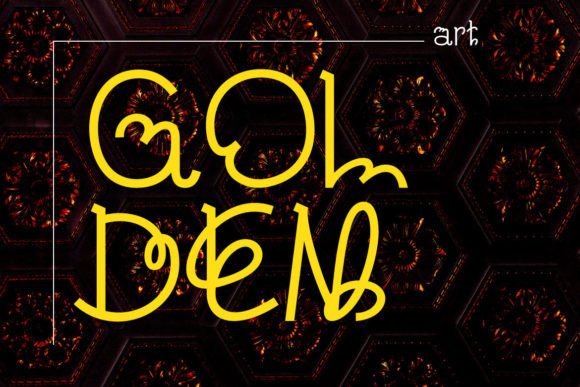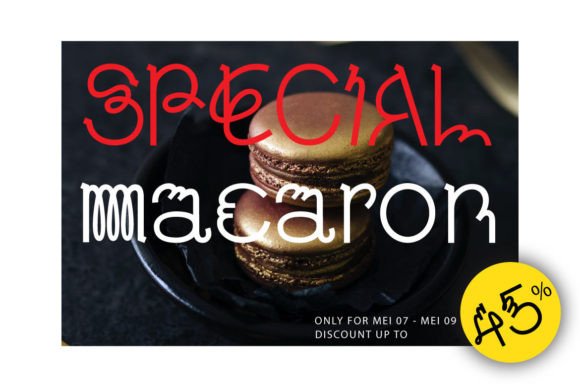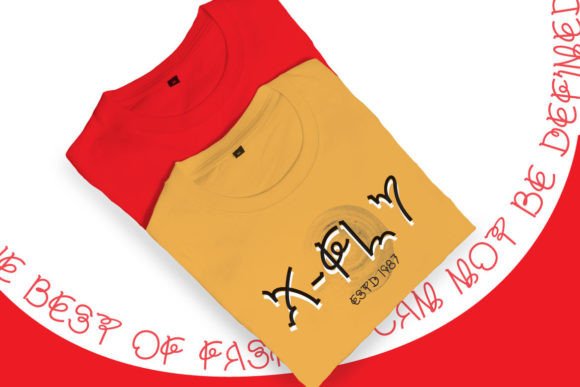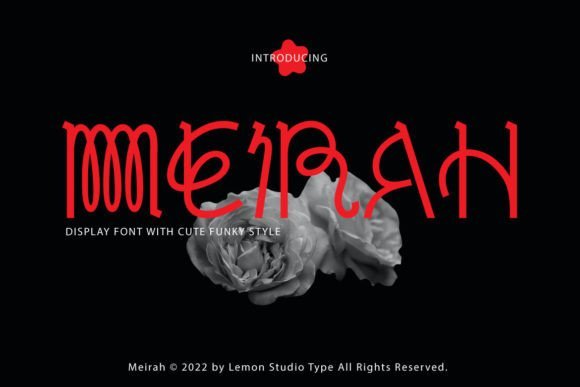
Introduction to Meirah Font
Meirah is a unique display font that has a funky and vintage signature.
The font has a shape that inspires young people to dare to make any changes they like Meirah is perfect for street art, wall art, branding, headings, mockups, and more.
Key Features of Meirah Font
Why Choose Meirah Font?